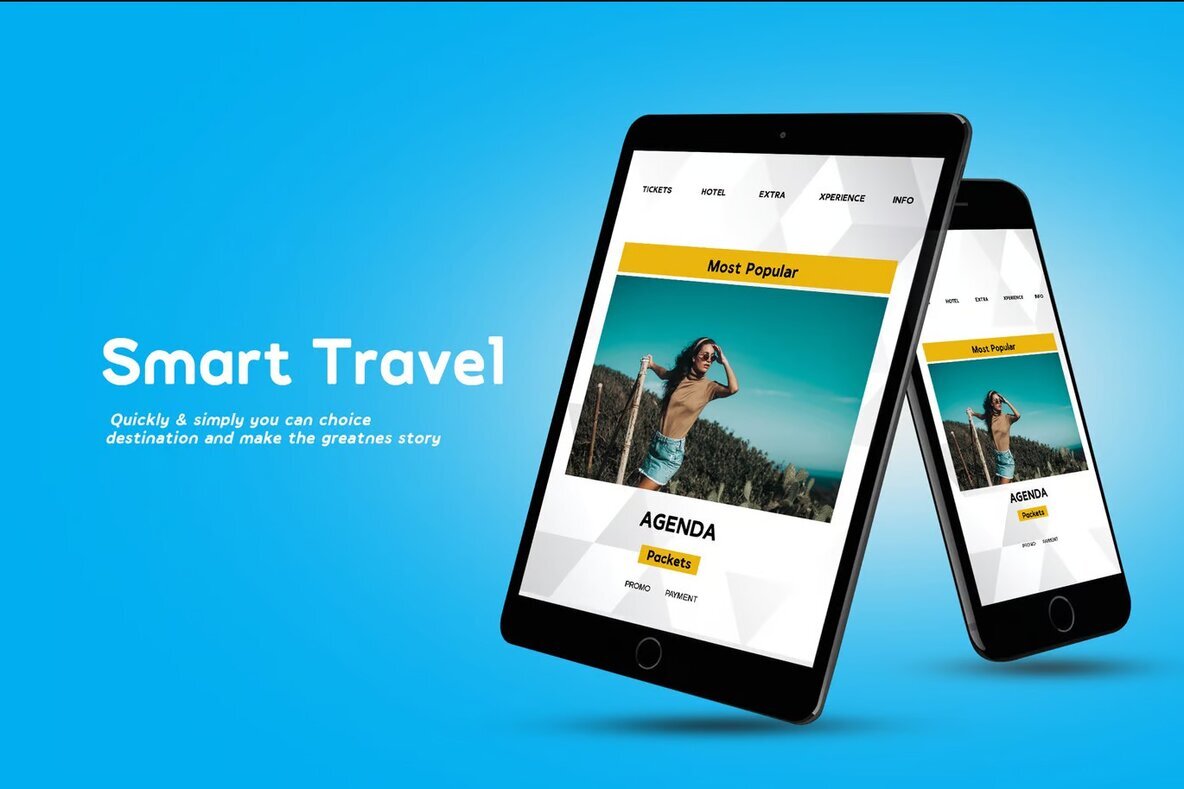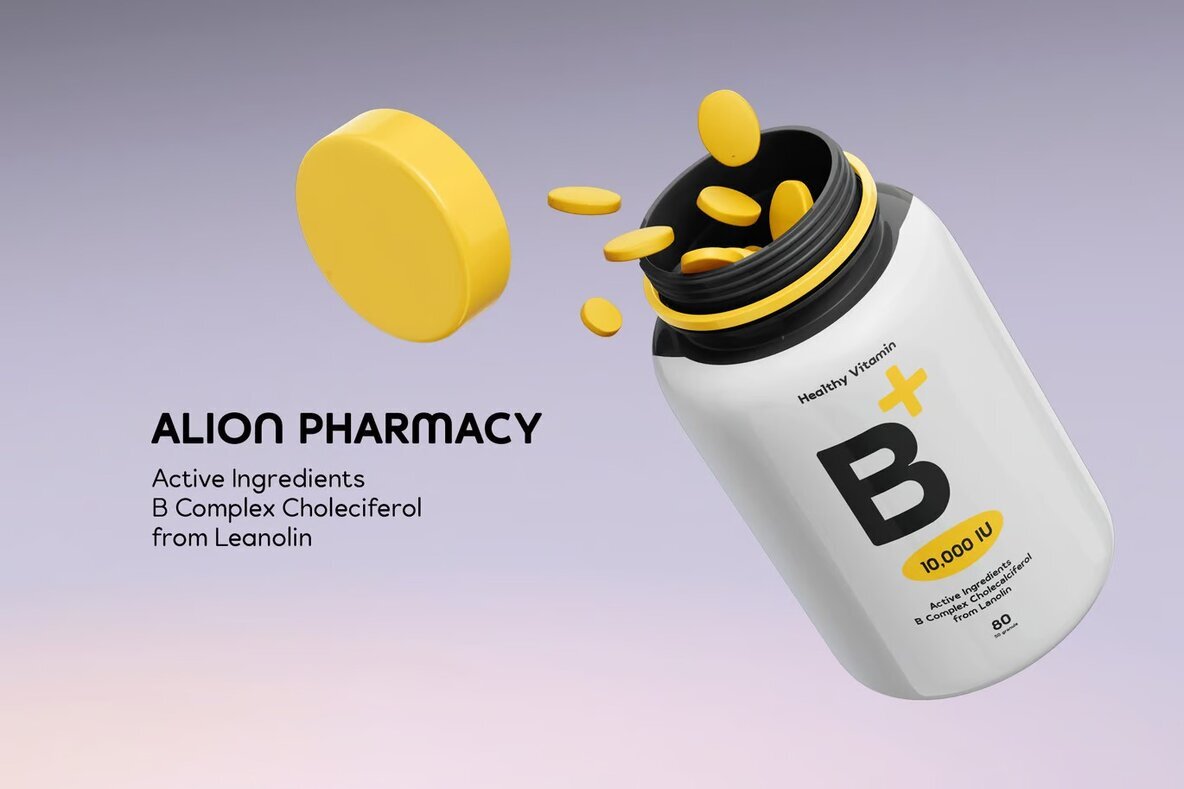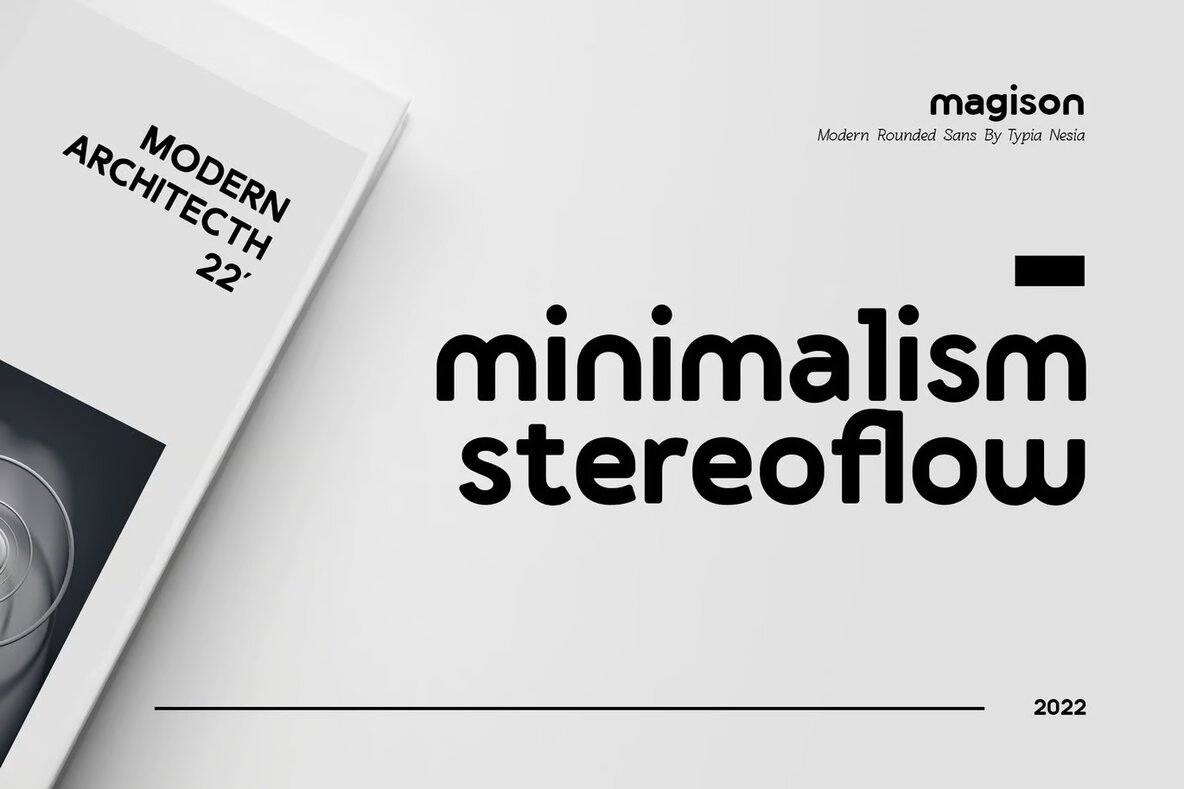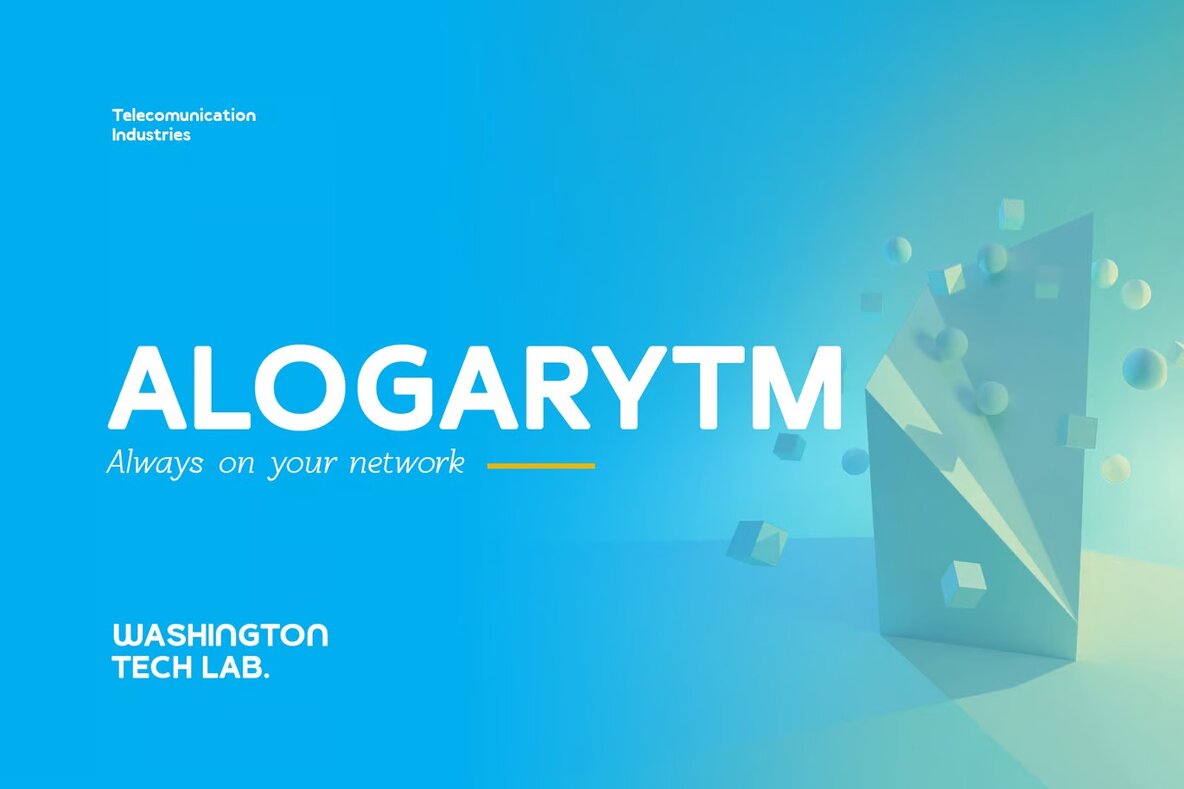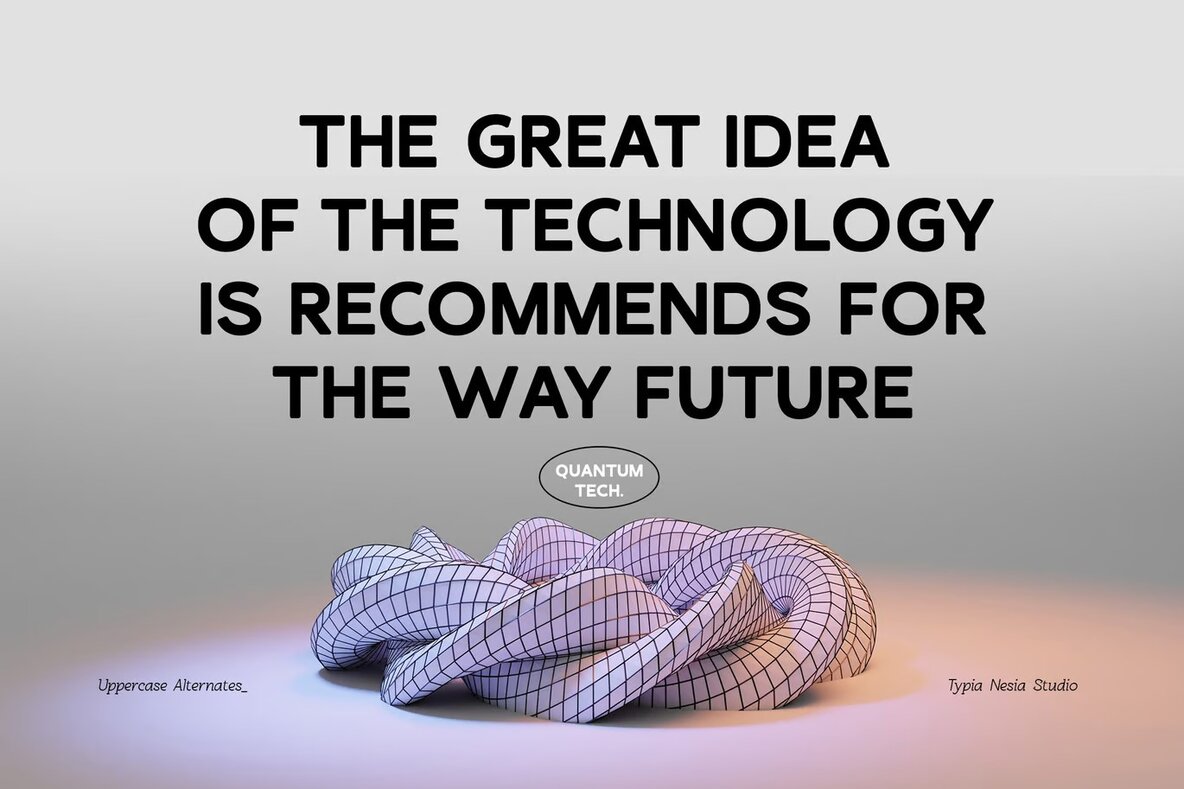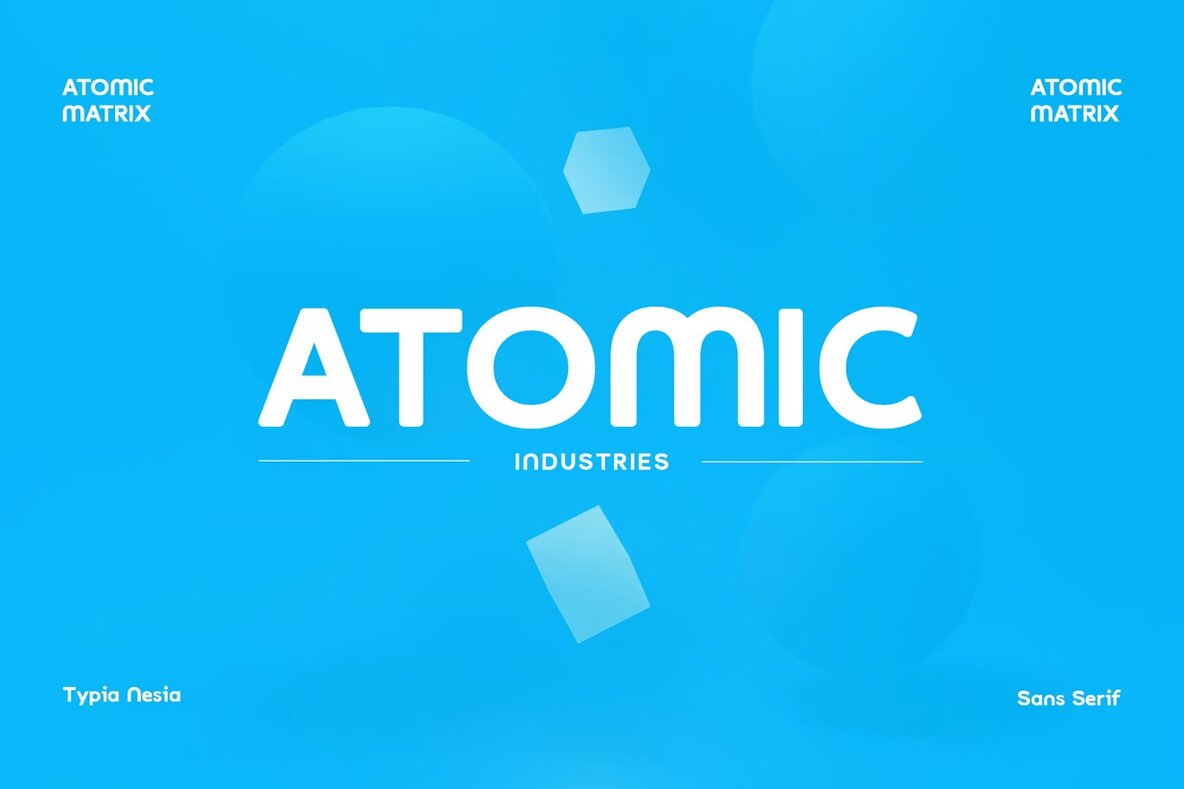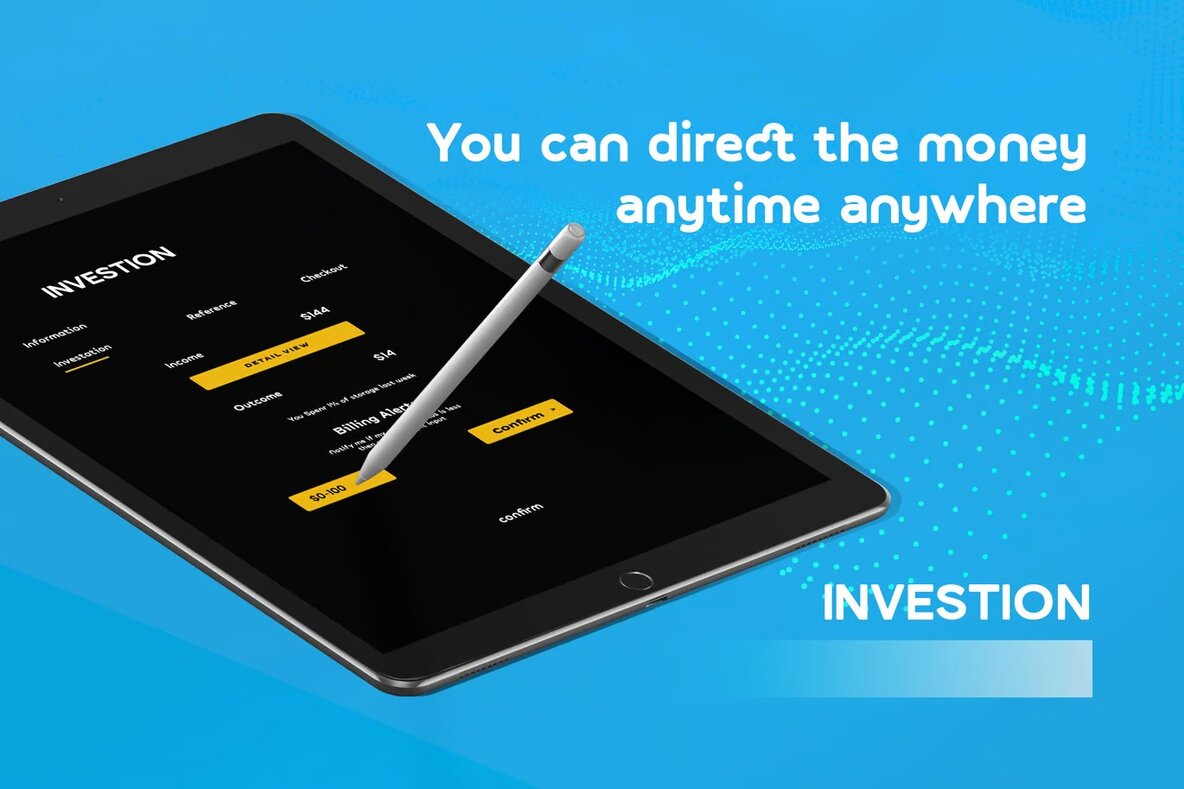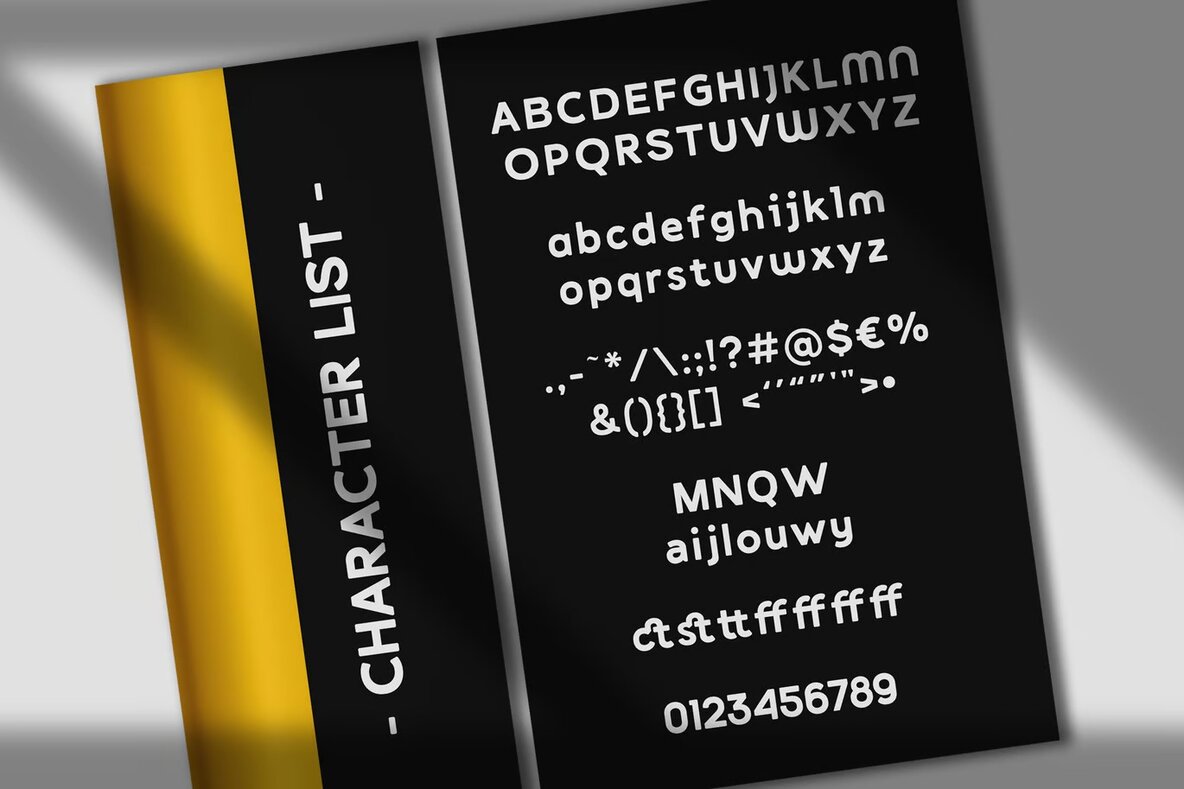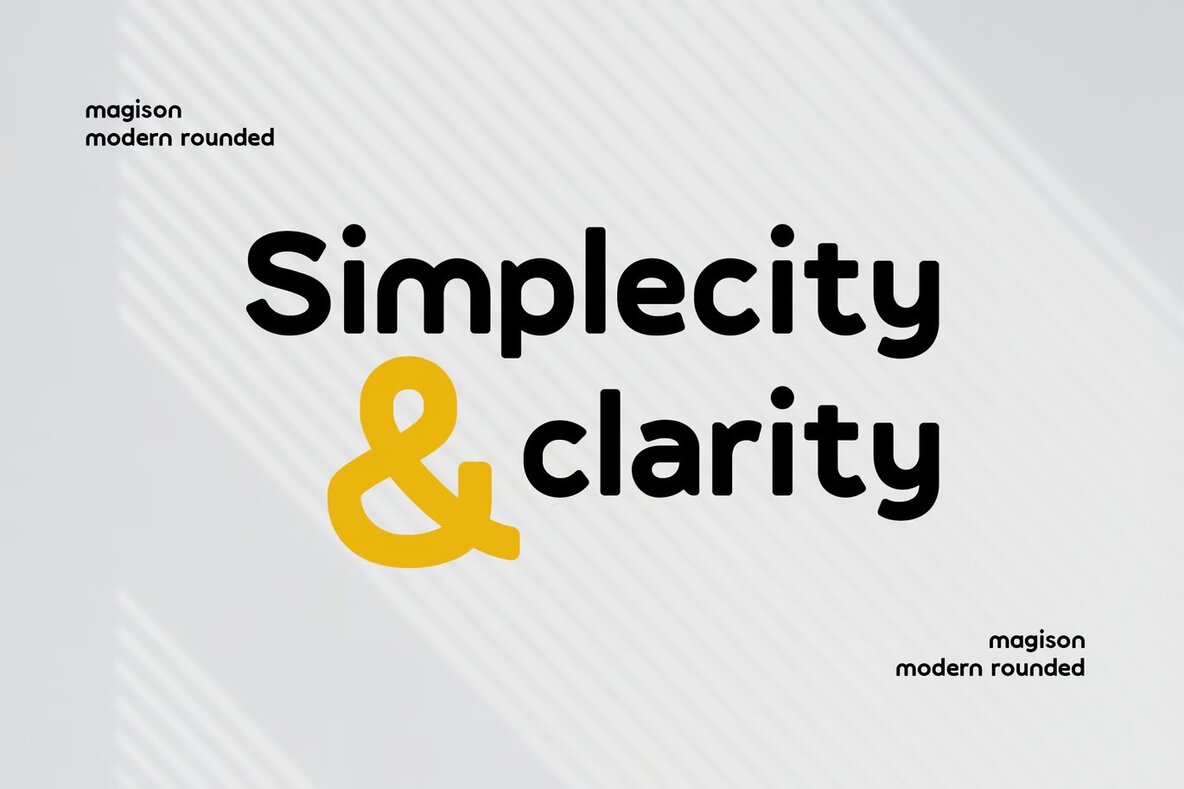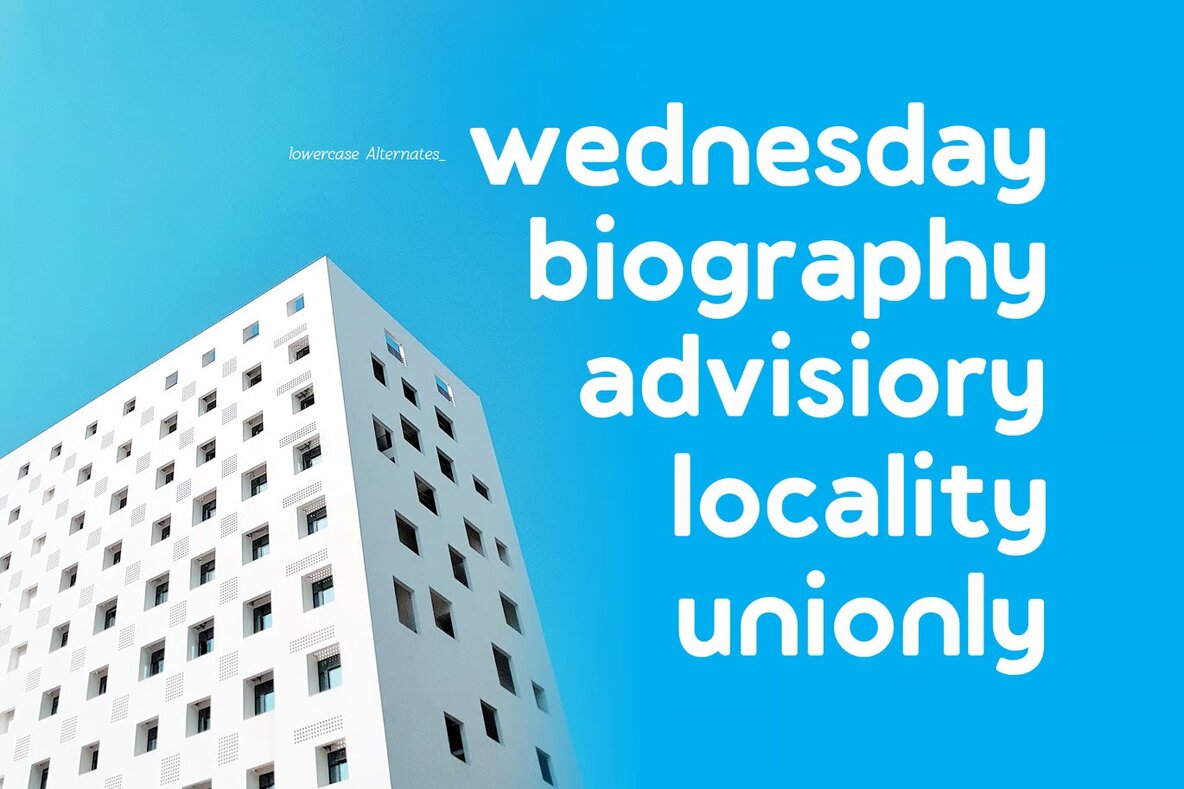
Magison Font
Magison is a modern, rounded, bold sans serif font that excels in technology and gadget-centric projects. Ideal for logo branding, editorial design, and stationery design, Magison seamlessly blends sophistication and contemporary style. It's perfect for diverse applications such as e-sport designs, 80s retro themes, and the game industry. The bold and rounded aesthetic also makes it suitable for sport racing, digital music posters, and modern advertising, ensuring your projects stand out.
This versatile typeface is engineered to enhance apps start-up design, art quotes, home decor, book covers, and special events. Its modern, techno-inspired look provides a captivating visual appeal, bringing a professional yet playful vibe to any project. Whether you're working on digital media, print, or online platforms, Magison's striking features will make your designs memorable and impactful.